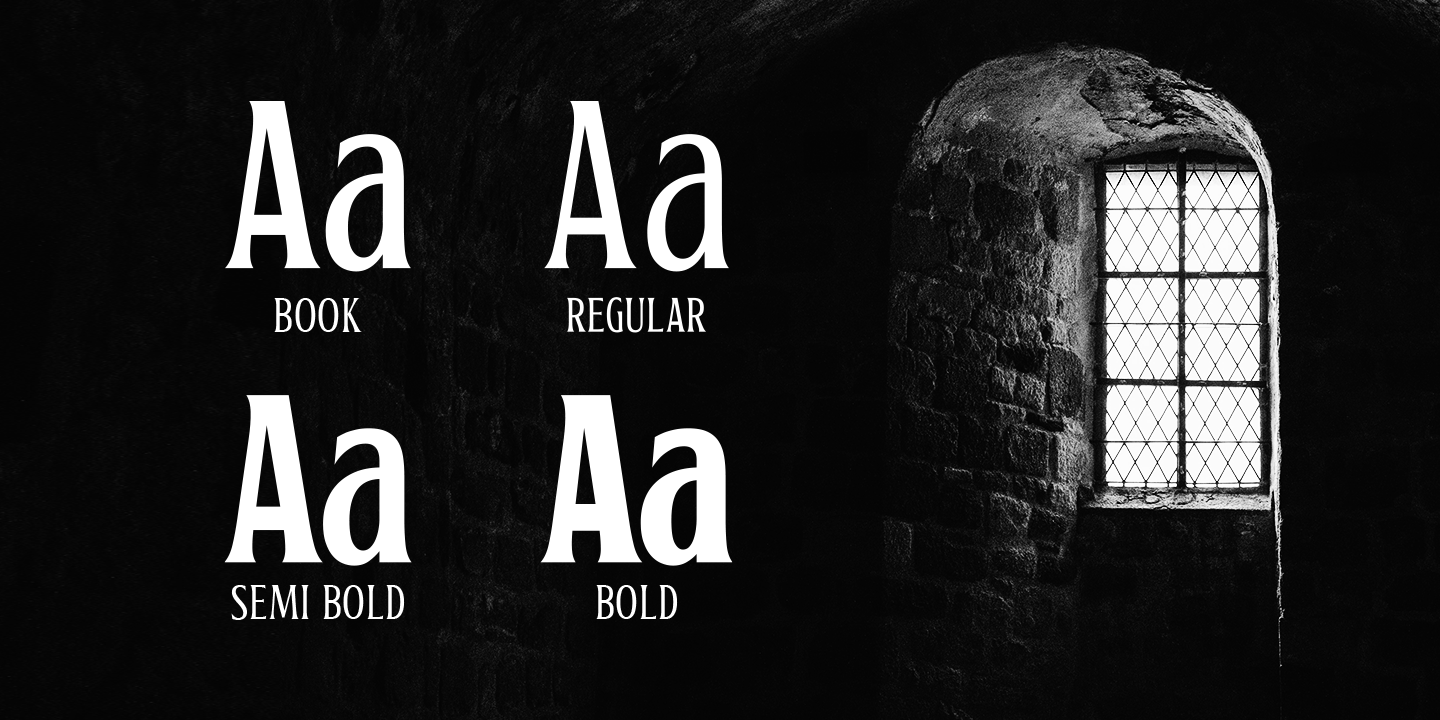
This sophisticated typeface excels in various premium applications including luxury brand identities, boutique packaging design, high-end editorial layouts, fashion catalogues, artisanal product labels, wine and spirits branding, exclusive event invitations, and upscale retail signage. The Lemands Font embodies refined elegance with its carefully balanced letterforms that seamlessly blend classic proportions with contemporary design sensibilities.
What makes this font truly exciting is its ability to convey understated luxury through subtle design details that reveal themselves upon closer inspection. The meticulously crafted characters feature gentle contrast variations, refined curves, and perfectly calibrated spacing that create an air of effortless sophistication. Its distinctive personality combines timeless grace with modern precision, making every application feel elevated and intentionally designed.
The Lemands Font family includes a comprehensive range of weights designed for luxury applications: Thin, Light, Regular, Medium, Semi Bold, Bold, and Black, each with corresponding italic styles. Every family member maintains the signature refinement while providing designers with tools to create elegant typographic hierarchies and sophisticated brand systems.